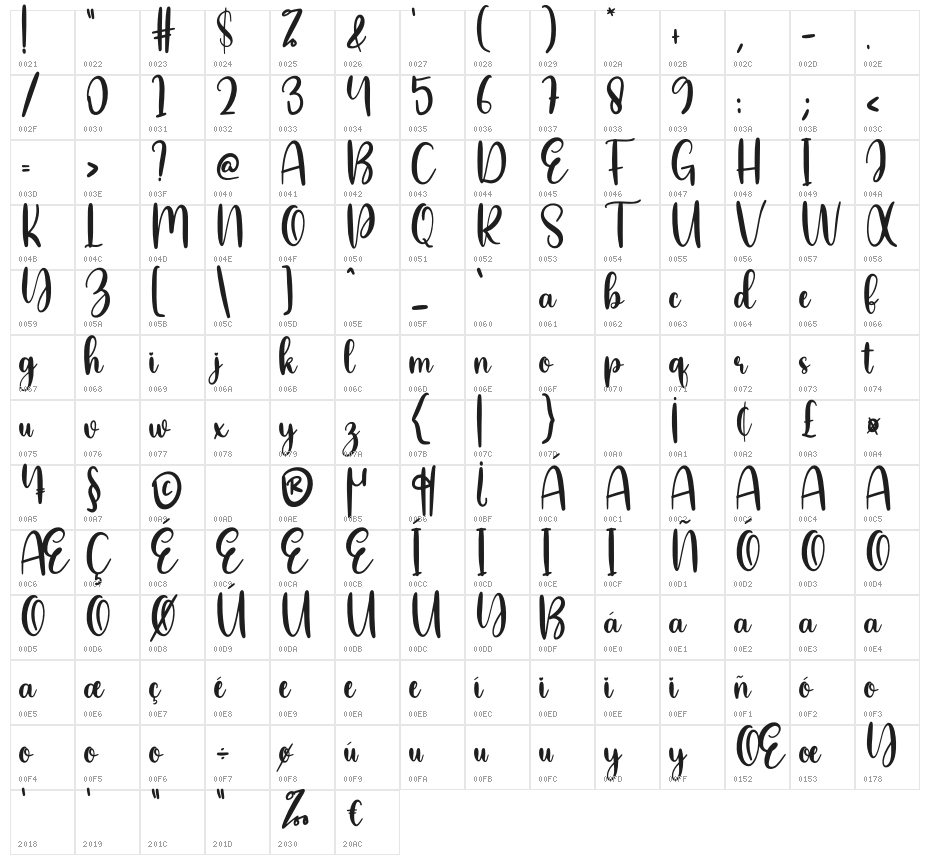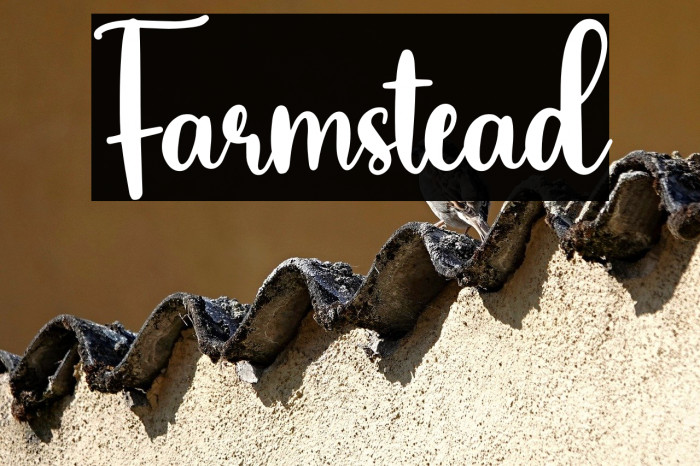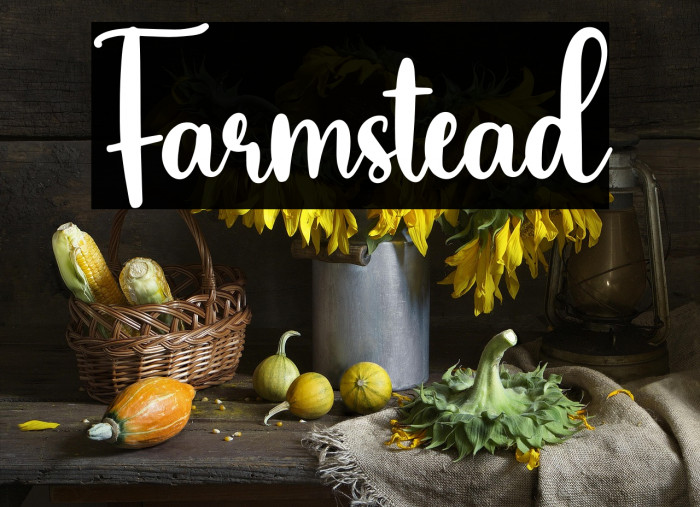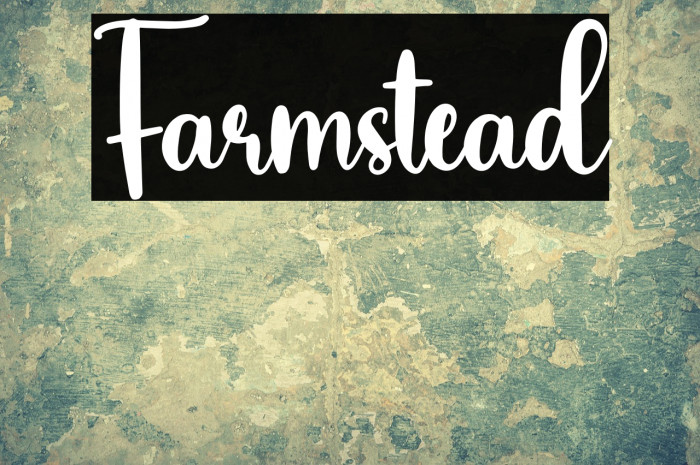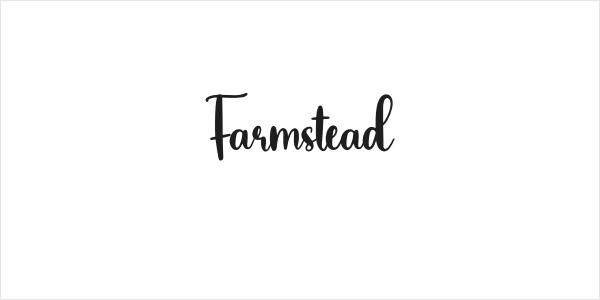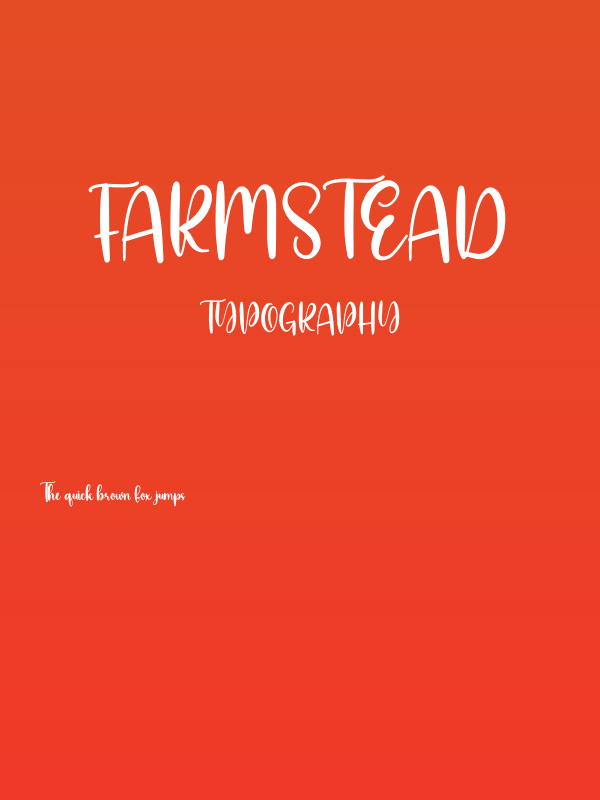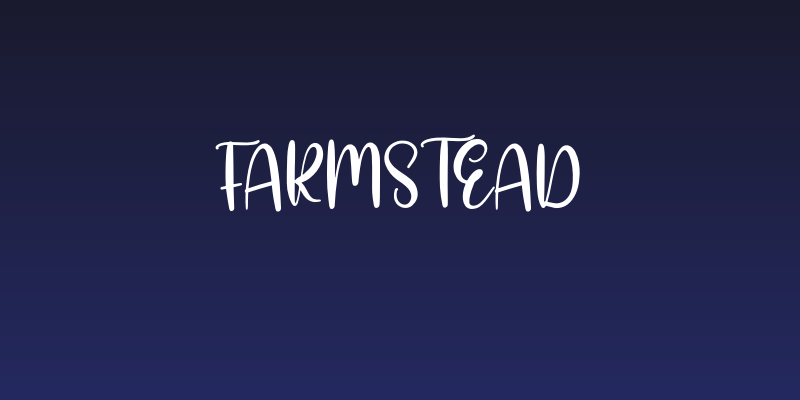
Farmstead Font
Farmstead Description
A playful and bold handwritten script font with smooth curves and a casual style.
Overall StyleCasual and decorative.
Use CaseHeadlines, Logos, Invitations.
Proposed ProjectsGreeting cards, invitations, posters.